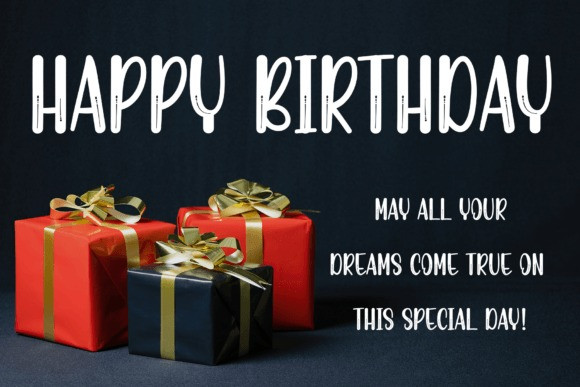
Snoweb Font
Snoweb Font is a sweet and friendly handwritten font. Its natural and unique style makes it incredibly fitting to a large pool of designs. The only limit is your imagination!